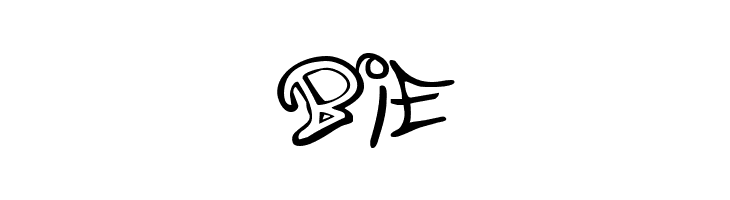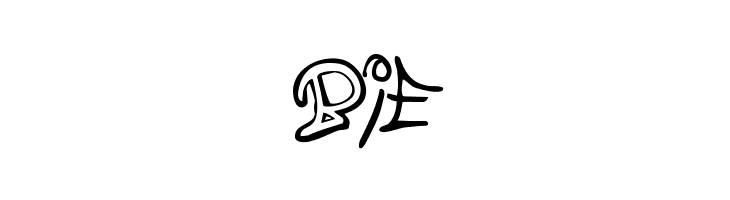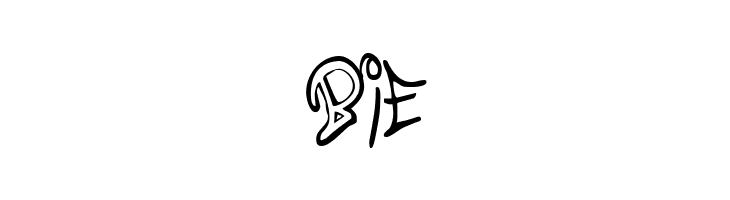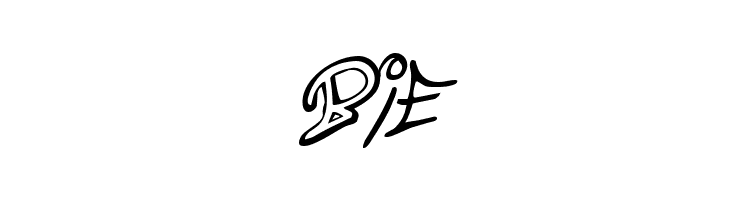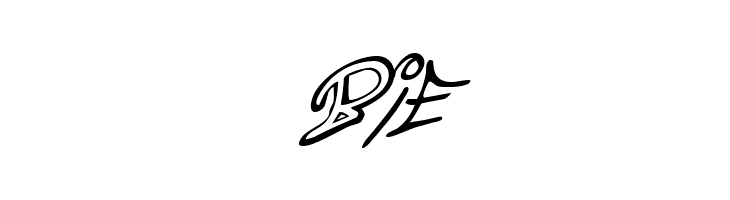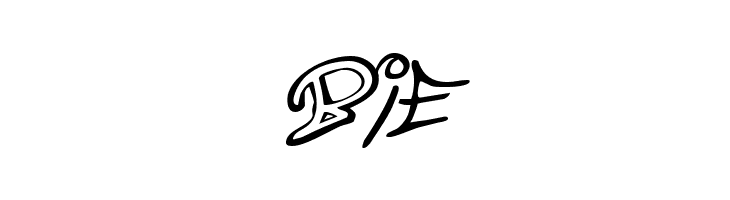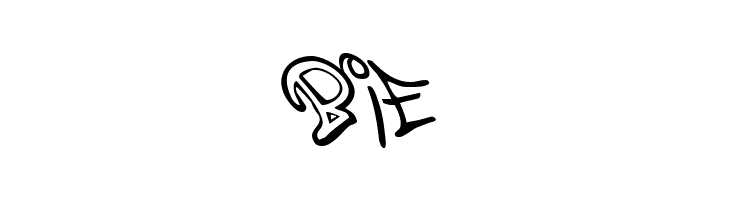
A bold, dynamic font with slanted characters and strong strokes.
A graffiti-inspired font with bold, angular strokes and a dynamic, rebellious style.
A vintage, distressed typewriter-style font with irregular edges and a handcrafted feel.
A bold, modern font with thick, uniform strokes and a strong presence.
A bold, geometric font with high contrast and decorative striped patterns.
A bold pictogram font of various transportation and vehicle icons.
A dynamic serif font with calligraphic influences and sharp serifs.
Ornate dingbat font with illustrations of traditional arts and crafts.
A bold, high-contrast serif font with a condensed and elegant style.
A classic, high-contrast, condensed italic font with elegant and sophisticated styling.
A bold, hand-drawn font with a rustic, textured appearance.
Decorative symbol font featuring African archetypal imagery.
A bold, rounded font with uniform strokes and a playful, approachable style.
A bold, rounded font with smooth curves and a playful, approachable style.
A bold, oblique font with a papercut effect, offering a playful and handcrafted style.
A classic blackletter font with ornate, sharp-edged characters and a Gothic aesthetic.